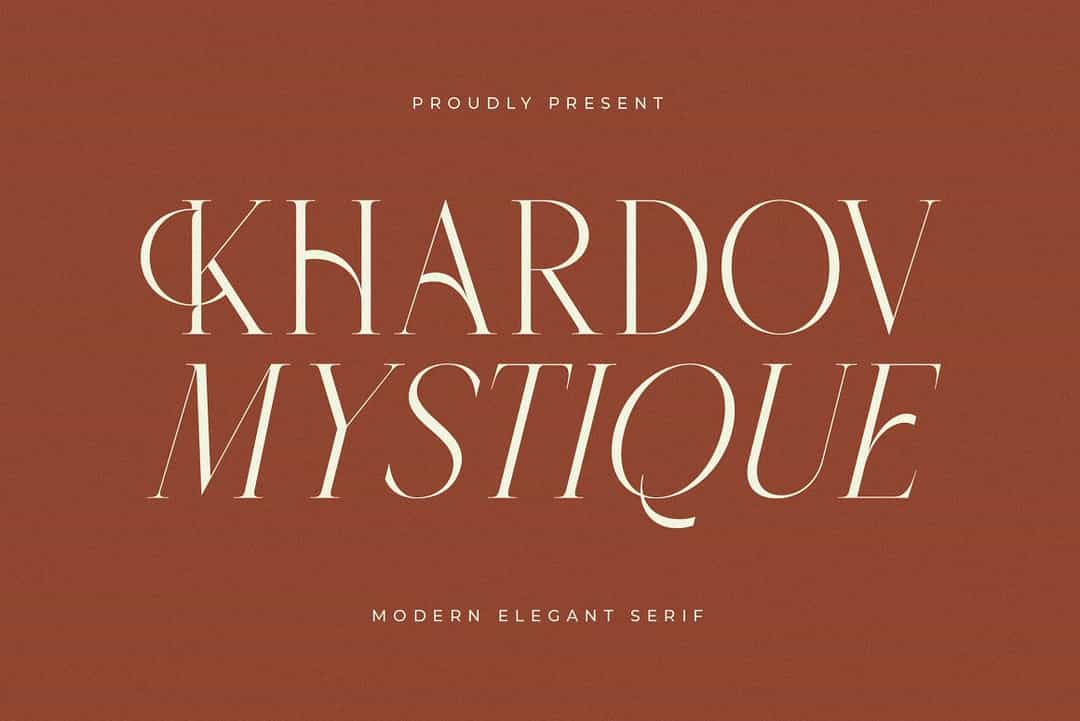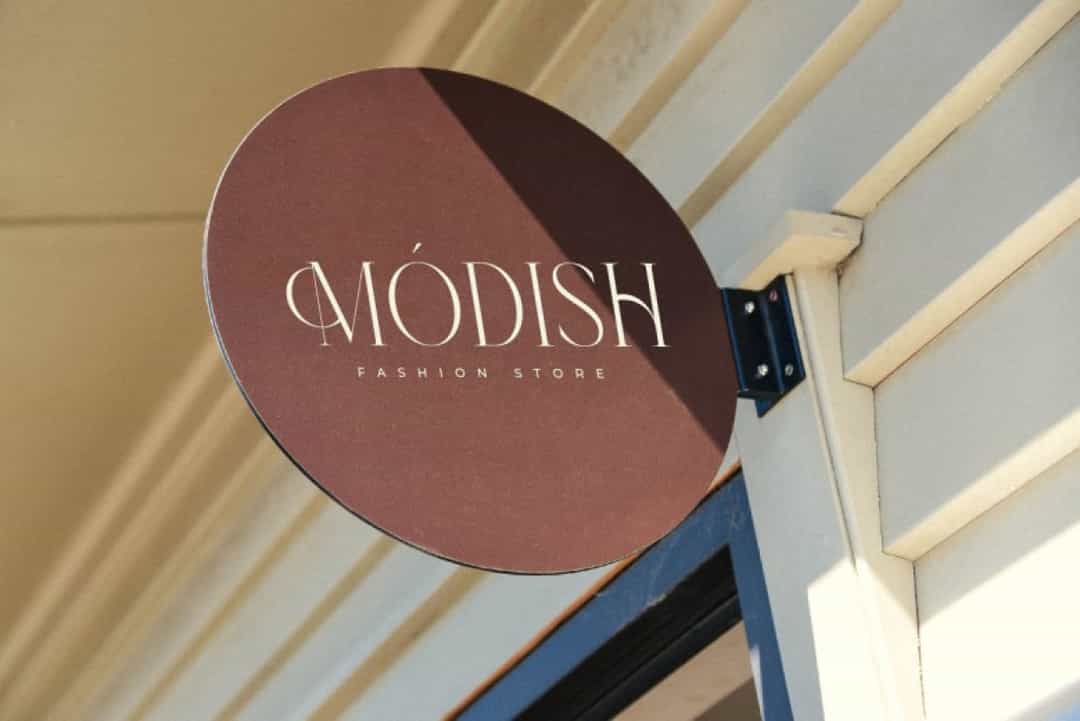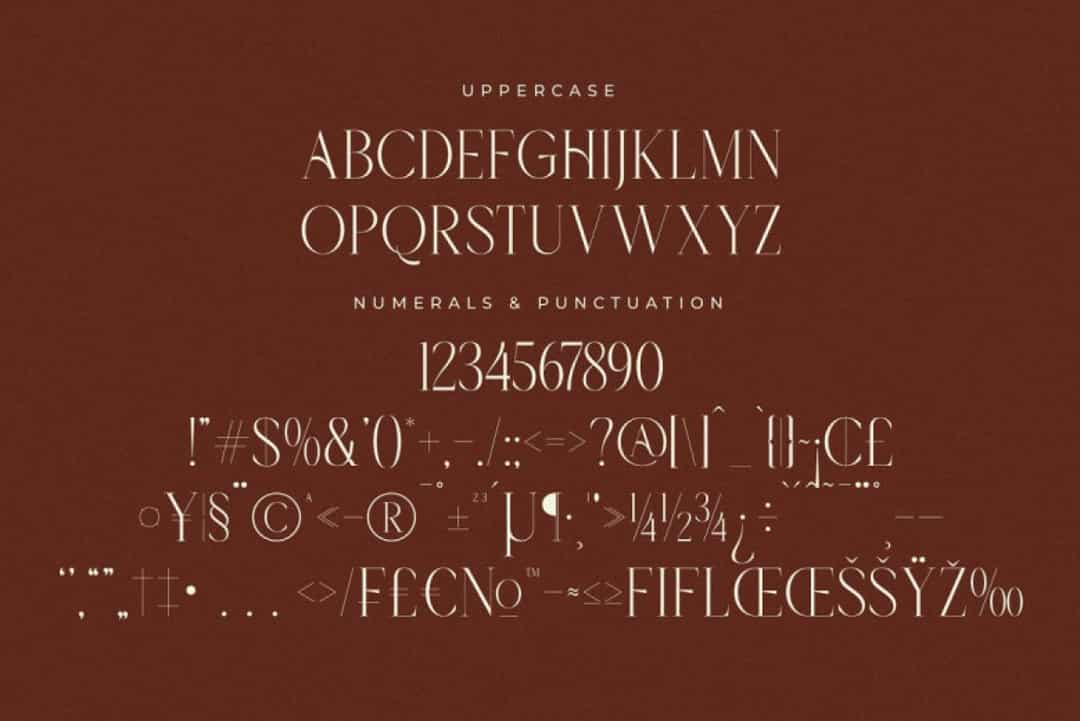
Discover Khardov Mystique Font, part of the Serif collection—a versatile and unique font perfect for adding a personal touch to your projects. Download it for free and enjoy crafting designs with style, from invitations to social media posts. This font is available exclusively for personal use, giving you the freedom to create without limits. Unlock your creativity with Khardov Mystique Font today!
Khardov Mystique Modern Elegant Serif by Letterena can be used for almost any project ranging from logos, branding and homeware designs, packaging for products (mugs, quotes posters shopping bags books t-shirts name cards), packaging designs (packaging), as well as name cards.